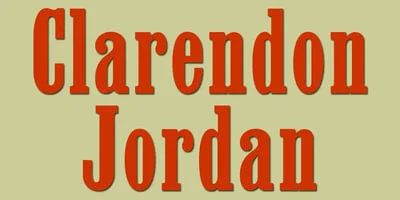
Clarendon Jordan Font
Clarendon Jordan Font excels in vintage poster designs, classic newspaper headlines, retro advertising campaigns, old-western themed branding, traditional barbershop signage, antique store marketing, heritage brand communications, and nostalgic designs requiring authentic historical character and timeless appeal.
Clarendon Jordan Font creates excitement through its bold slab-serif heritage and distinctive character that captures the essence of 19th-century American typography. This typeface commands attention with its robust structure and historical authenticity, bringing genuine vintage atmosphere while maintaining exceptional readability for contemporary applications requiring period accuracy.
Clarendon Jordan Font family encompasses comprehensive weight options including Light, Regular, Medium, Bold, and Black variations. Additional condensed styles and decorative elements provide designers with extensive typographic flexibility for creating authentic vintage compositions that honor traditional printing craftsmanship and historical design principles.
The historical authenticity of Clarendon Jordan Font makes it indispensable for projects demanding genuine vintage character. This classic typeface seamlessly bridges 19th-century typography traditions with modern design requirements, delivering exceptional performance in both digital and print applications where historical accuracy creates compelling brand narratives.
Heritage brands consistently select Clarendon Jordan Font for communications requiring authentic vintage appeal. Its classical proportions and historical character make it perfect for antique dealers, heritage businesses, traditional craft companies, and brands celebrating American typographic history. The font's versatile nature ensures timeless performance across all vintage applications.
Journey through typography history with Clarendon Jordan Font and experience how this exceptional typeface brings authentic 19th-century character and vintage sophistication to every project, creating memorable brand experiences that honor traditional craftsmanship while captivating contemporary audiences seeking genuine historical charm.